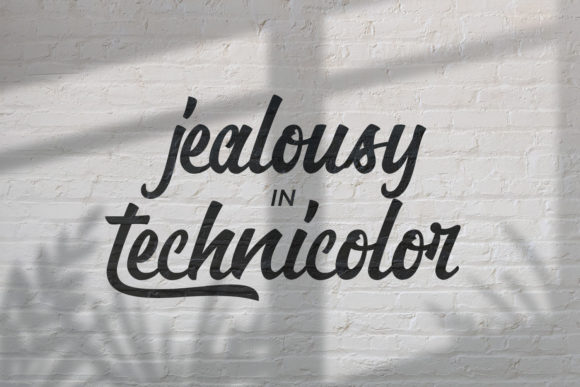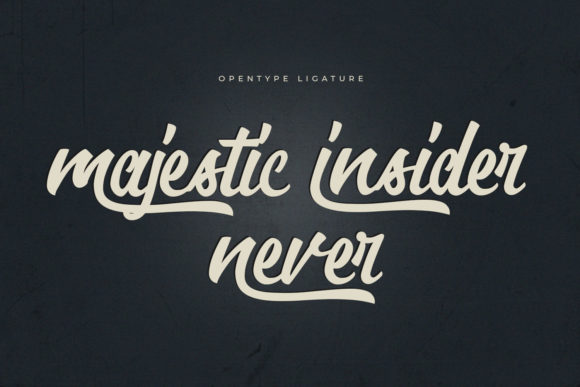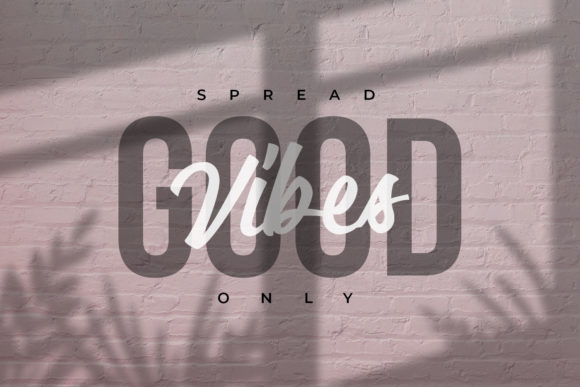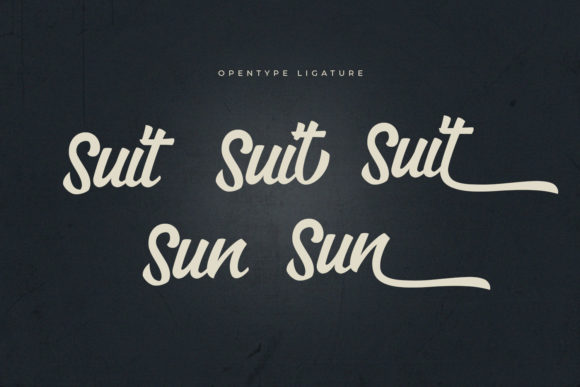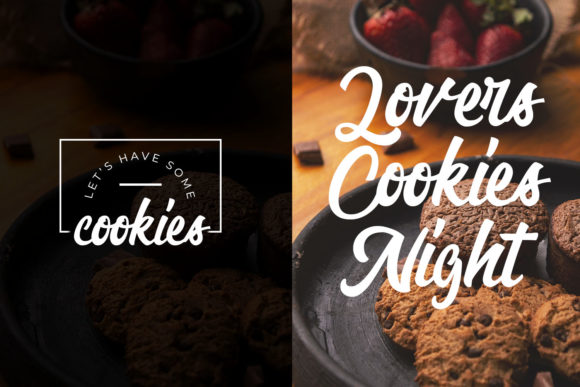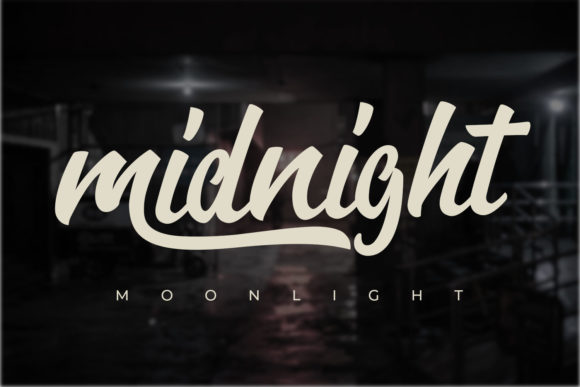
Introducing Breaut Clais Font: The Perfect Addition to Your Crafting Projects
Are you a designer or crafter looking for a unique and personalized touch for your projects? Look no further than the Breaut Clais font! This bold and friendly handwritten font is perfect for adding a touch of warmth and character to any crafting project. In this article, we’ll dive into the features and benefits of the Breaut Clais font, and explore how you can use it to take your crafting projects to the next level.
What is Breaut Clais Font?
Breaut Clais is a modern handwritten font that is both bold and friendly. Its unique and elegant design makes it perfect for a wide range of crafting projects, from DIY signs and cards to scrapbooking and journaling. The font’s distinctive style is characterized by its flowing lines, rounded edges, and subtle imperfections, giving it a warm and approachable feel.
Key Features of Breaut Clais Font
• Bold and Friendly Design: The Breaut Clais font features a bold and friendly design that is sure to grab attention. Its unique style is perfect for creating eye-catching headings, titles, and text.
• Handwritten Style: The font’s handwritten style gives it a personal and approachable feel, making it perfect for crafting projects that require a touch of warmth and character.
• Easy to Read: Despite its bold design, the Breaut Clais font is easy to read, making it perfect for use in a wide range of crafting projects.
• Versatile: The Breaut Clais font is versatile and can be used in a wide range of crafting projects, from DIY signs and cards to scrapbooking and journaling.
Benefits of Using Breaut Clais Font
So why should you choose the Breaut Clais font for your crafting projects? Here are just a few benefits of using this amazing font:
• Personalized Look: The Breaut Clais font adds a personalized touch to any crafting project, making it perfect for creating unique and special items.
• High-Quality Design: The Breaut Clais font features a high-quality design that is sure to impress. Its bold and friendly style is perfect for creating professional-looking crafting projects.
How to Use Breaut Clais Font in Your Crafting Projects
Using the Breaut Clais font in your crafting projects is easy! Here are a few ideas to get you started:
• DIY Signs: Use the Breaut Clais font to create eye-catching DIY signs for your home or office.
• Cards and Invitations: Add a personal touch to your cards and invitations with the Breaut Clais font.
• Scrapbooking and Journaling: Use the font to add a touch of warmth and character to your scrapbooking and journaling projects.
Tips and Tricks for Getting the Most Out of Breaut Clais Font
Here are a few tips and tricks for getting the most out of the Breaut Clais font:
• Experiment with Different Sizes: Experiment with different font sizes to find the perfect size for your crafting project.
• Pair with Other Fonts: Pair the Breaut Clais font with other fonts to create a unique and eye-catching design.
• Use in Combination with Images: Use the font in combination with images to create a visually appealing design.
In conclusion, the Breaut Clais font is a bold and friendly handwritten font that is perfect for adding a personalized touch to any crafting project. Its unique design, ease of use, and high-quality features make it a must-have for designers and crafters. Whether you’re creating DIY signs, cards, or scrapbooking and journaling projects, the Breaut Clais font is sure to take your crafting projects to the next level.